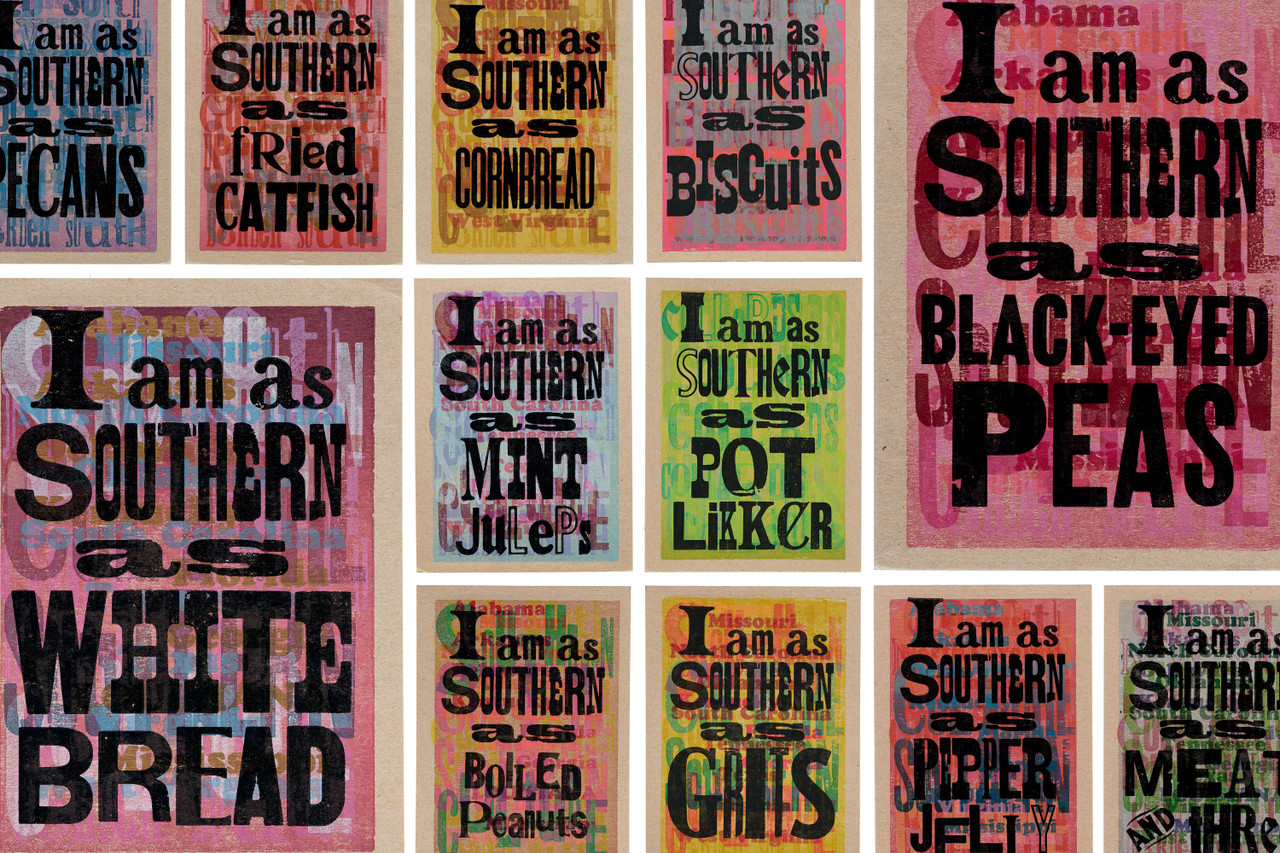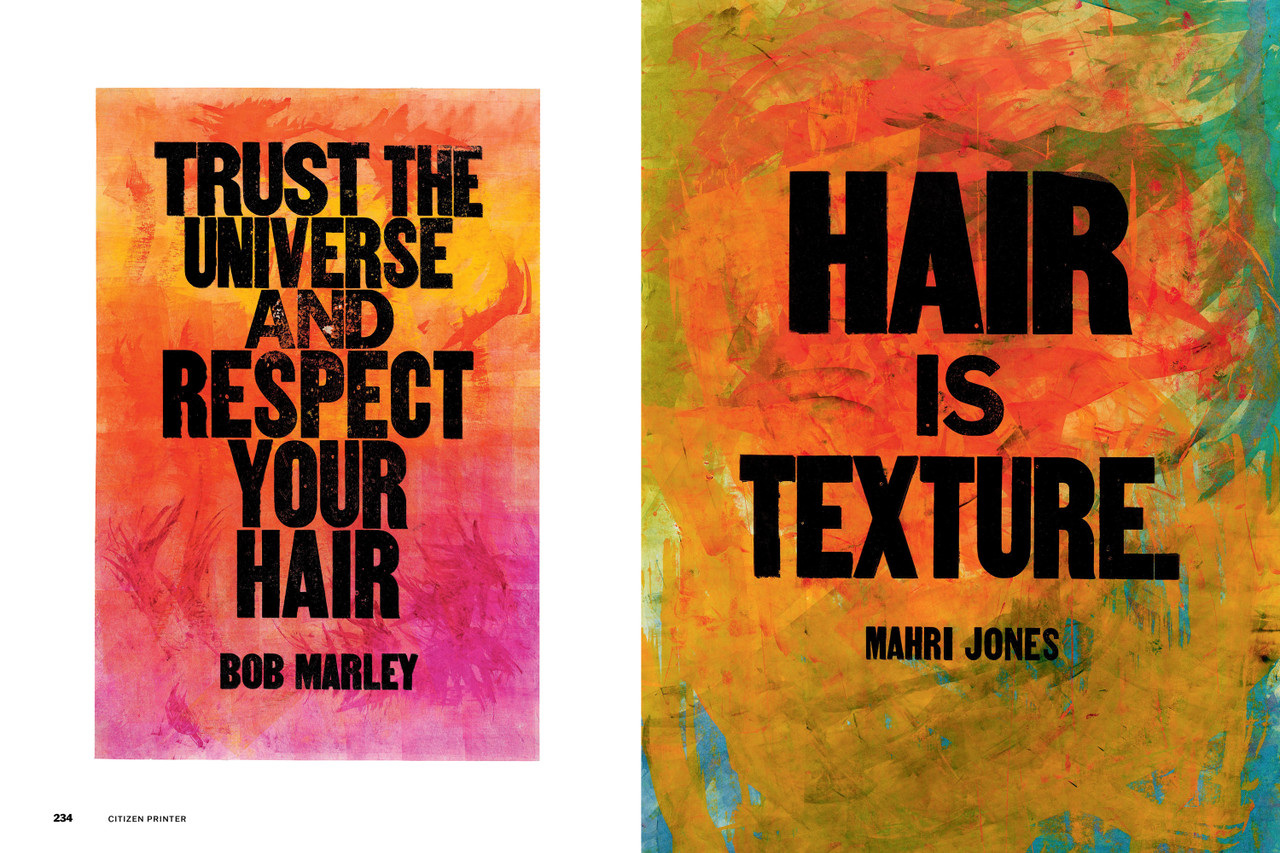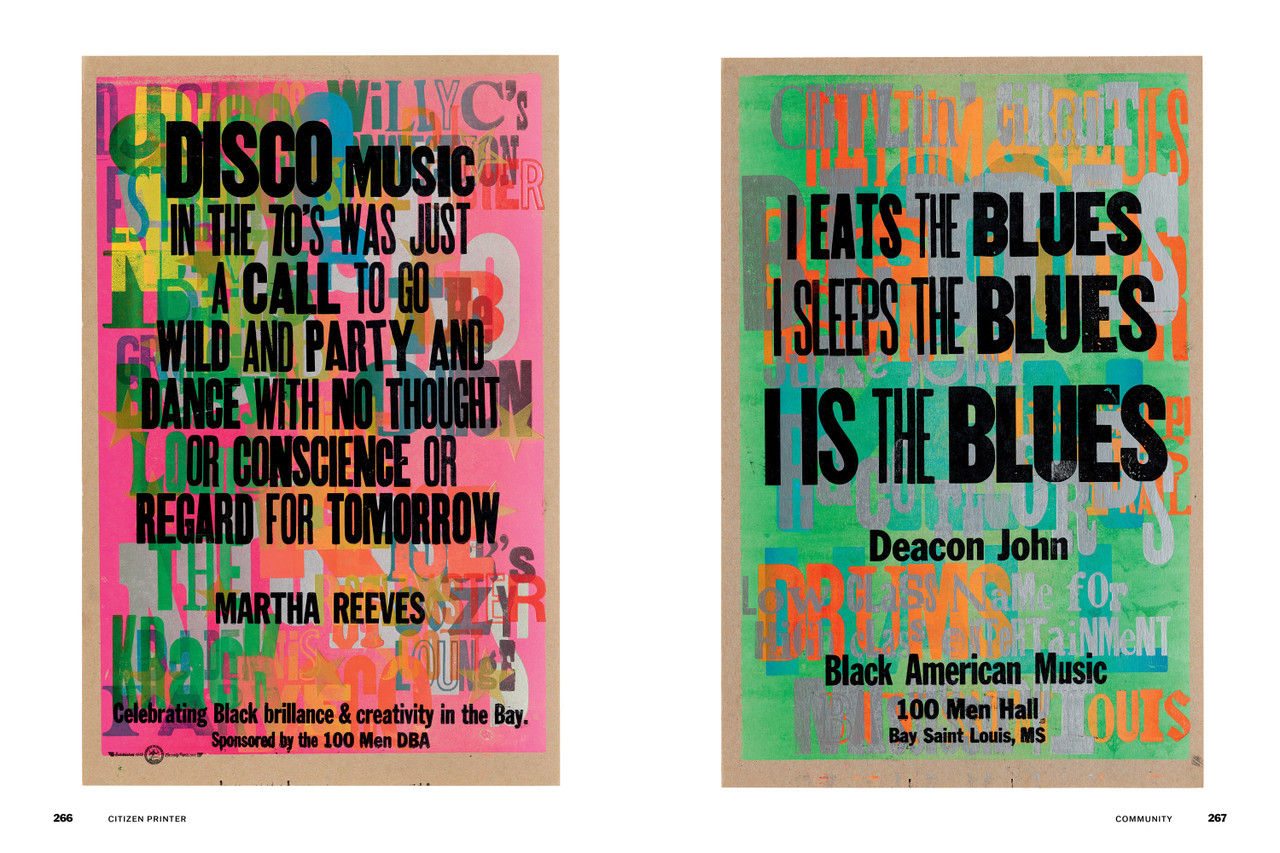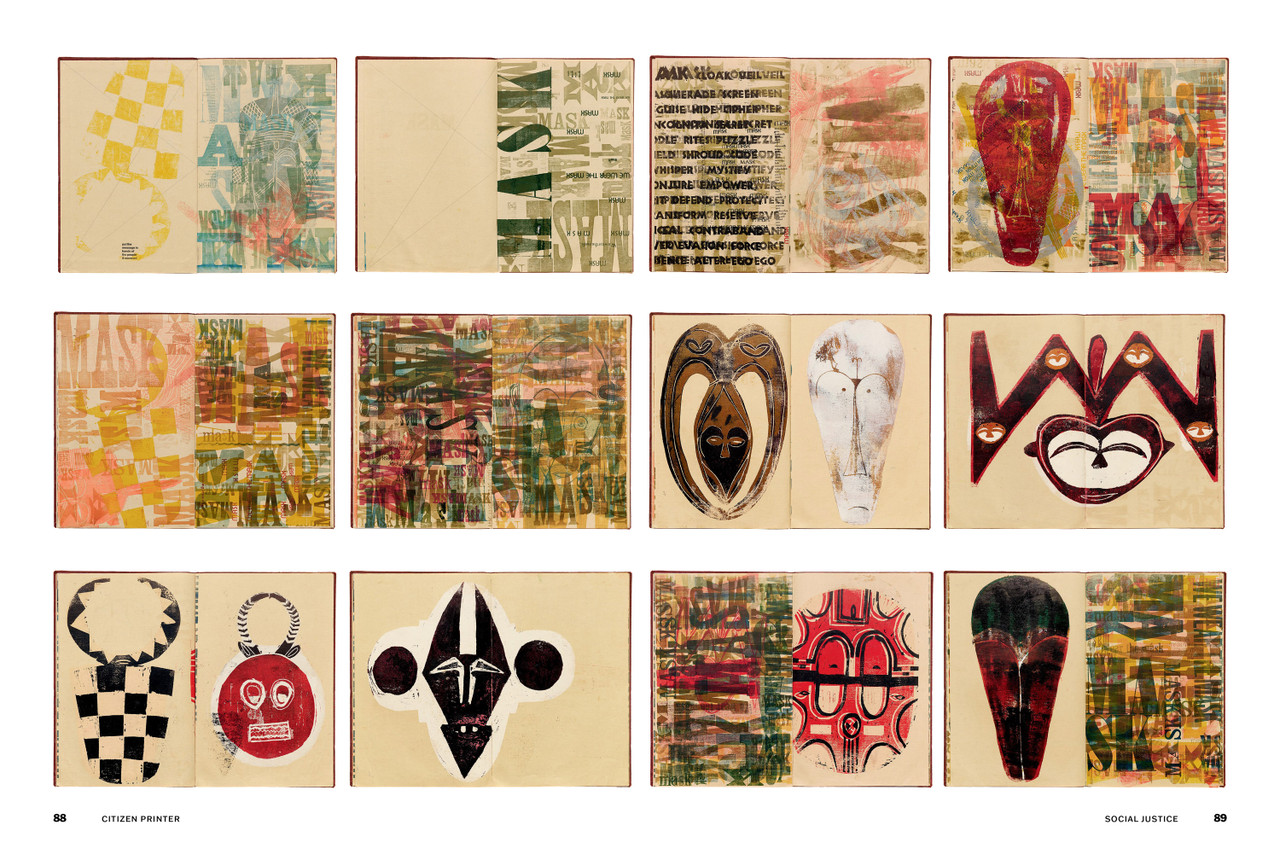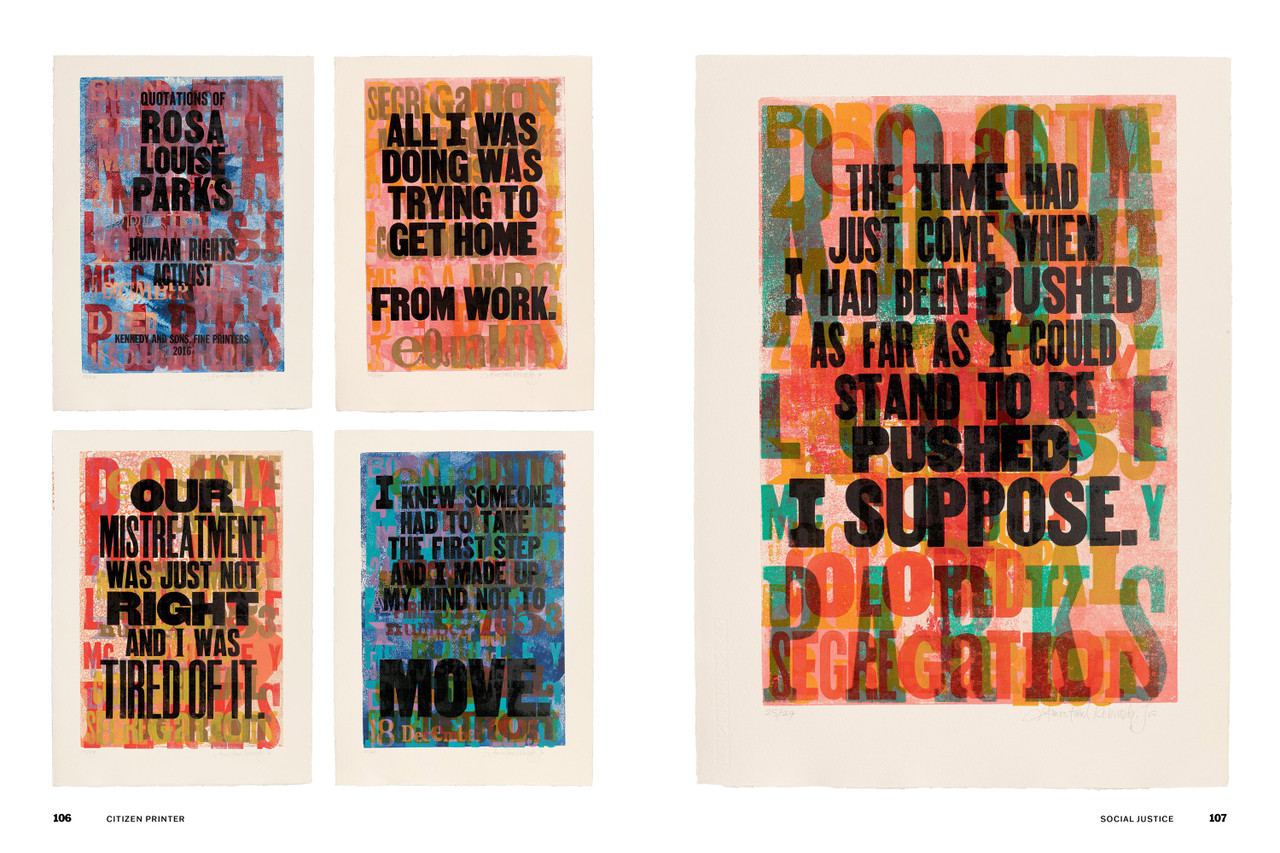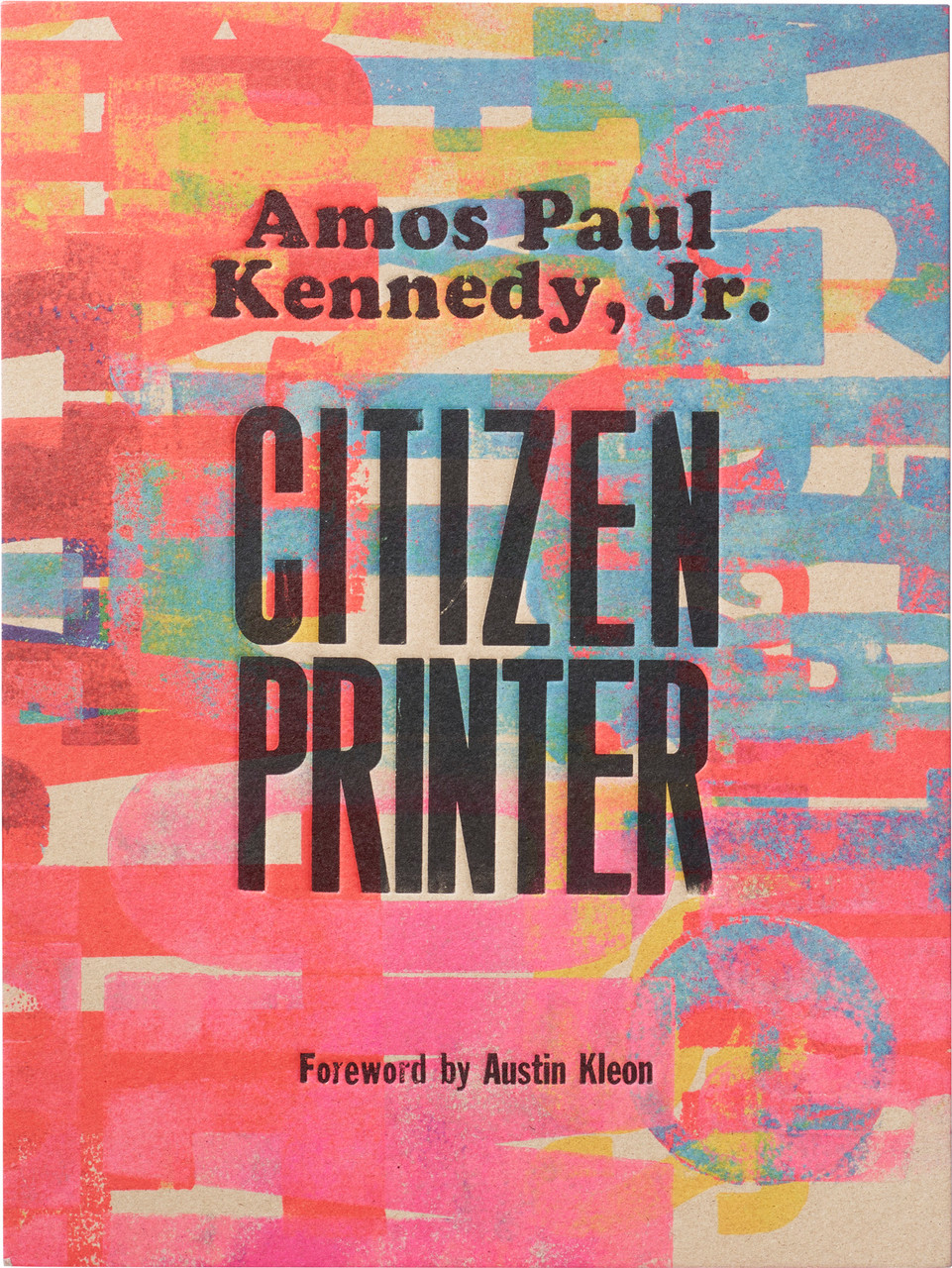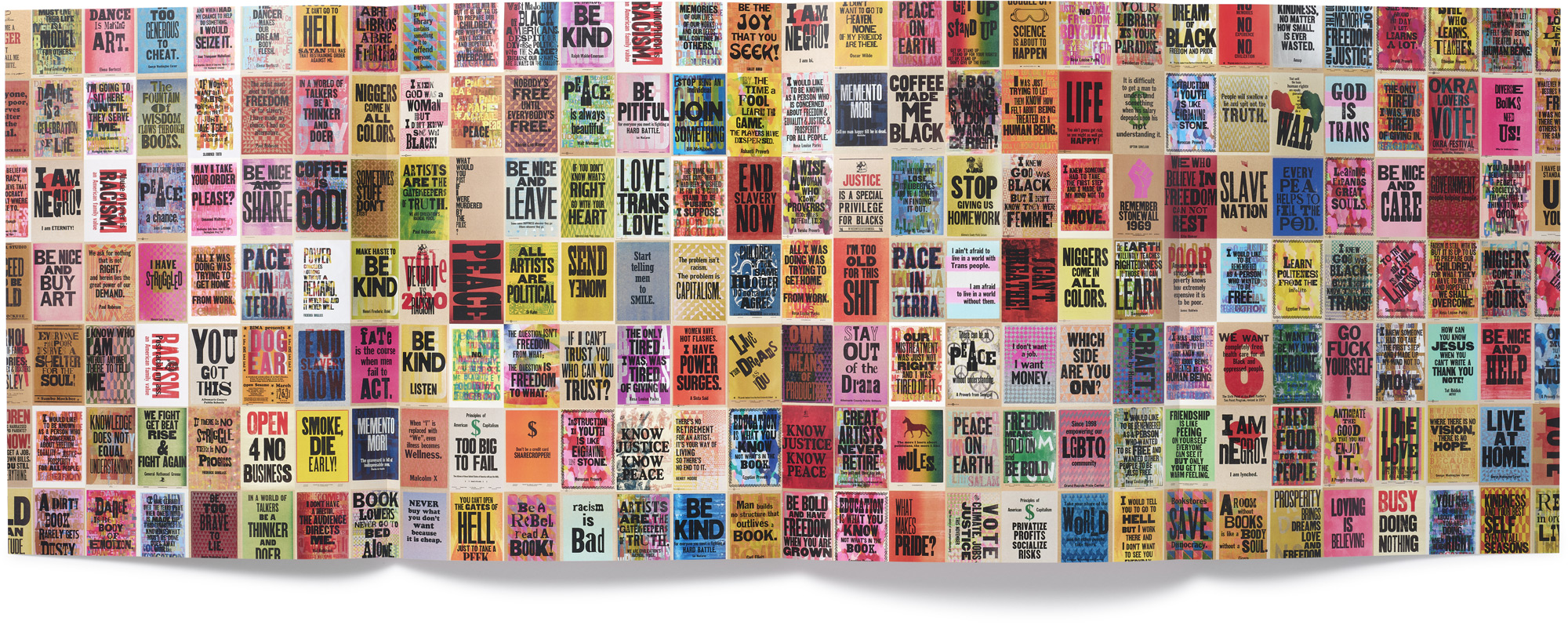
About Amos Paul Kennedy, Jr.
Amos Paul Kennedy, Jr., was working a corporate job when, at nearly forty, he discovered the art of letterpress printing on a tour of Colonial Williamsburg. Kennedy then devoted himself to the craft, earning an MFA in graphic design at the University of Wisconsin–Madison. He now operates Kennedy Prints!, a letterpress printshop in Detroit. He has been featured in outlets like Hyperallergic, the New York Times, and the Economist, and he has exhibited in dozens of museums and galleries across the United States, including Poster House, the Brooklyn Public Library, the Library of Congress, and the libraries of the Museum of Modern Art and the Metropolitan Museum of Art.
“Amos Paul Kennedy, Jr., is not only one of the country’s most gifted and prolific printmakers but also a major historian and theorist of print as democratic art. Like an antislavery broadsheet or country almanack, Citizen Printer is an overflowing compendium of biography and philosophy, jokes and arguments, sage advice and visionary manifestos. While ample reproductions showcase work from across Kennedy’s storied career, the essays and book design activate the joy of printing as a social experience. Readers will discover the meaning of citizenship in the grain of paper, the viscosity of ink, the weight of type.”
— Chris Dingwall, Assistant Professor of Design History, Washington University in St. Louis
“Amos Kennedy, Jr. is both a poet and printer. For Amos, language functions as action, and he has spent a career making words move.... [A] vital and timely monograph, Citizen Printer features more than 800 reproductions representing the breadth of Kennedy’s letterpress works. At a time of global social and political upheavals and conflicts, an artist dedicated to making art accessible and available to all isn’t just an essential practice but one of the important acts of resistance we have.”
— Juxtapoz
“Disregarding all memos that print is dead, Amos Paul Kennedy, Jr., churns out vibrant, cacophonous, biting, witty, revolutionary, and joyous notices that cut through the visual void and inform the viewer of everything from okra festivals to gay pride parades. His posters are evidence that one doesn’t need to adhere to the rules of ‘good design’ to make damn good design.”
— Angelina Lippert, Executive Director & Curator, Poster House
“Amos Paul Kennedy, Jr., self-described citizen printer, is our visionary treasure, our creative freedom-fighter, our promise, and our partner. His sledgehammer of choice is letterpress printing, and his prints urge us to voyage away from the cold reality of the world we inhabit into worlds that could be or should be but are not yet.”
— Bill Ayers, cofounder of the Weather Underground and author of Demand the Impossible! and When Freedom Is the Question, Abolition Is the Answer
“Amos Paul Kennedy’s work is an expression of hope and a simultaneous poke in the eye meant to activate the forgotten instruments of change and recover the lost language of American idealism. This CITIZEN PRINTER amplifies the truth and provides clarity on the contradictions of our times.”
— Rick Griffith, designer, printer. MATTER
“Kennedy’s fearless handbills and posters on social justice, politics, race, and capitalism, bursting with color, are powerful, expressive statements of intuitive, spontaneous print activism.... Citizen Printer has a dynamic, generous design and layout, [and] high production values support a tactile, craft-like, print workshop feeling, right down to its sturdy board cover.”
— Eye